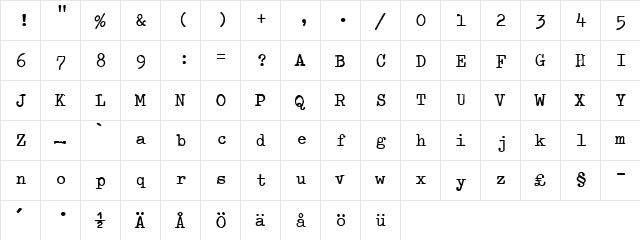
Splendid 66 Bold
Design Context for Splendid 66 Typeface
Splendid 66 takes a measured approach to typography — its balanced proportions and neutral character make it a reliable workhorse for both digital and print work. The heavy weight commands attention and anchors typographic hierarchies.